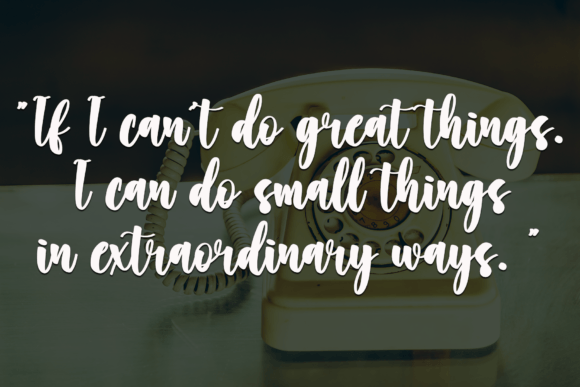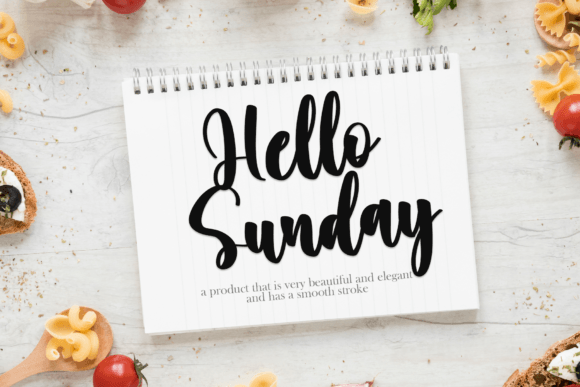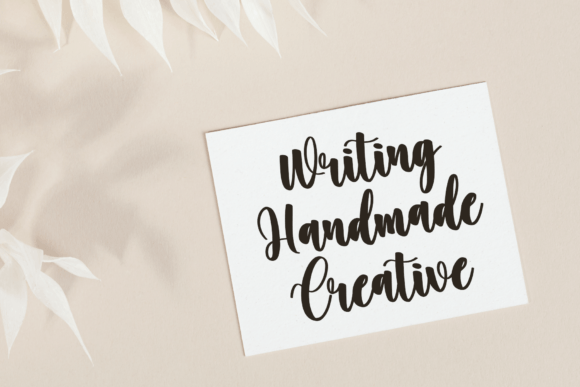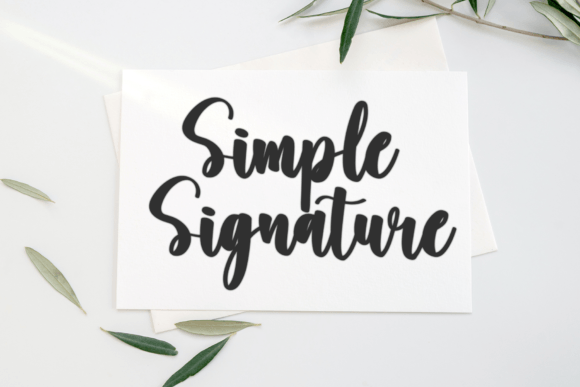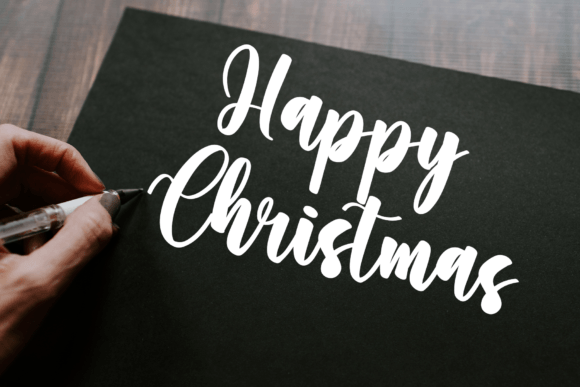
The Magic of Handwritten Charm: Unwrapping the Christmas Font
As a designer, there’s nothing quite like the thrill of discovering a new font that sparks creativity and brings a project to life. For me, that moment came when I stumbled upon the Christmas Font – a delightful handwritten font that exudes warmth and personality. Its whimsical strokes and varied letterforms transport me to a cozy winter wonderland, filled with the joy and magic of the season.
Perfect for conveying heartfelt messages, the Christmas Font is a versatile choice for designers looking to add a touch of authenticity to their work. Whether used for invitations, greeting cards, or branding, this font’s charm is sure to leave a lasting impression on your audience. By incorporating the Christmas Font into your designs, you can evoke the same sense of wonder and enchantment that I felt when I first discovered it.
Key Features of Christmas Font
- Size: 400 glyphs, 1,200 characters, and 3,000 kerning pairs
- Unique Characteristics: Hand-drawn, elegant, and festive design with intricate details, perfect for holiday-themed projects
Christmas Font Review
Overall, the Christmas Font is a charming addition to any holiday design project. I love the ✨ festive feel it brings, and the wide range of styles and sizes available make it easy to customize.
- ✨ The font’s unique, cursive design is perfect for creating a whimsical and magical atmosphere.
- ✨ The extensive character set includes a variety of punctuation marks, making it easy to use in any design project.
- ✨ The font is highly customizable, allowing you to adjust the size, color, and spacing to suit your design needs.
- ⚠️ The font may not be suitable for formal or professional designs, as it’s quite playful and informal.
- ⚠️ Some characters, such as the letter “q”, may not render properly in certain font sizes or styles.
- ⚠️ The font is not compatible with all operating systems or devices, which may cause display issues.
Overall, I would give the Christmas Font 4 out of 5 stars. While it has some limitations, it’s a great choice for holiday designs or projects where a playful, festive feel is desired. With a little patience and experimentation, you can achieve beautiful results with this font.
Use the Christmas Font to add a festive touch to your holiday designs, such as invitations, cards, and decorations. Experiment with different font sizes, colors, and combinations to create unique and eye-catching effects.
The Christmas Font is ideal for:
- Holiday cards and invitations
- Decorations and signs
- Gift tags and labels
- Seasonal social media graphics